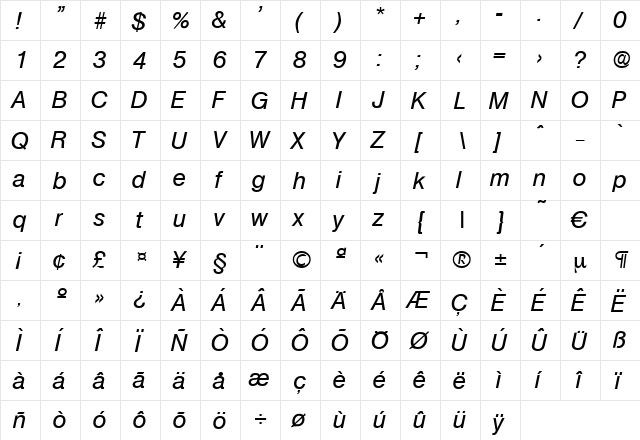
Olympia-MediumIta Regular
Design Context for Olympia-MediumIta Typeface
Olympia-MediumIta offers clean, dependable letterforms without strong stylistic allegiance, making it a practical choice for designers who need flexibility.
Pro Tip: Use Olympia-MediumIta in both headline and body roles to test its range before committing to a single application.